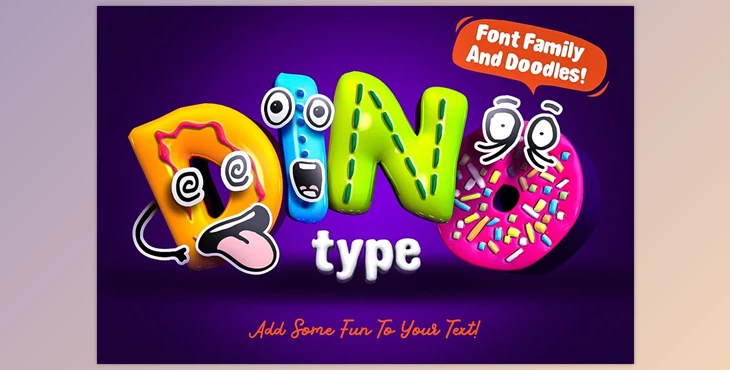
DinoType Font Family + Bonus: What's up, Mondays! Today is the day of the week because you'll be meeting with DinoType!
Fun and surprising font that is endlessly varied. Are you bored of writing? Are you looking to have fun? Why do not you try DinoType?
Create funny letter characters today!
DinoType Font Family has fun drawings that aren't. You can create unique characters using DinoType Doodles!
- DinoType Donut
- DinoTypeDonut Clean
- DinoType Dots
- DinoType Dots Clean
- DinoType Doodles
- DinoType Line
- DinoType Line Clean
- DinoType Sauce
- DinoType Sauce Clean
- DinoType Normal
- DinoType Script
Some great features of DinoType Font Family + Bonus:
Creative and Educational
- Make your imaginative thoughts real. You can also let your child design their creations.
Fun
- Eliminate all the dull illustrations and letters.
Customizable
- The font is fully configurable, as well as additional Doodles.